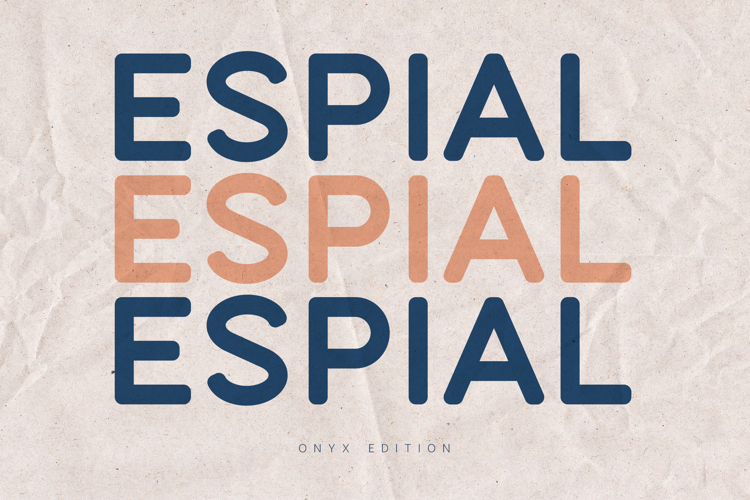
Espial Modern Geometric Sans Serif Font Family
Espial is a modern geometric sans serif typeface designed for clarity, balance, and contemporary design systems.
Built with smooth curves, open counters, and carefully balanced proportions, Espial delivers a clean and confident typographic voice. The rounded structure gives the font a soft and friendly tone while maintaining the precision and stability expected from a professional sans serif.
Its minimal construction makes Espial extremely versatile across branding, editorial layouts, digital interfaces, and modern visual identities. The letterforms are highly readable while still carrying a distinctive personality that works well in both large headlines and everyday text.
With extended language support and a wide set of punctuation and symbols, Espial is built to work reliably across global design projects.